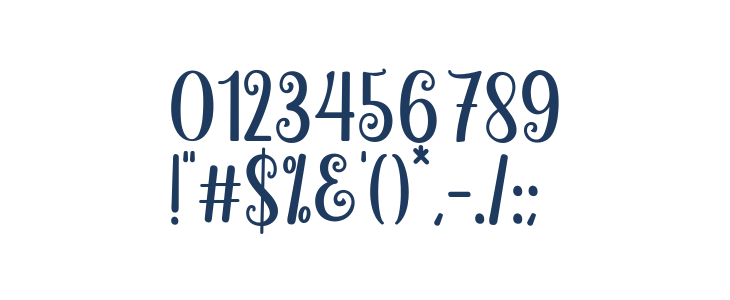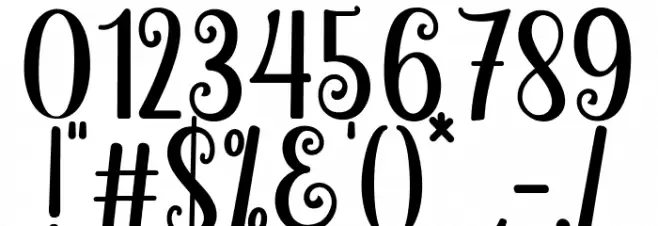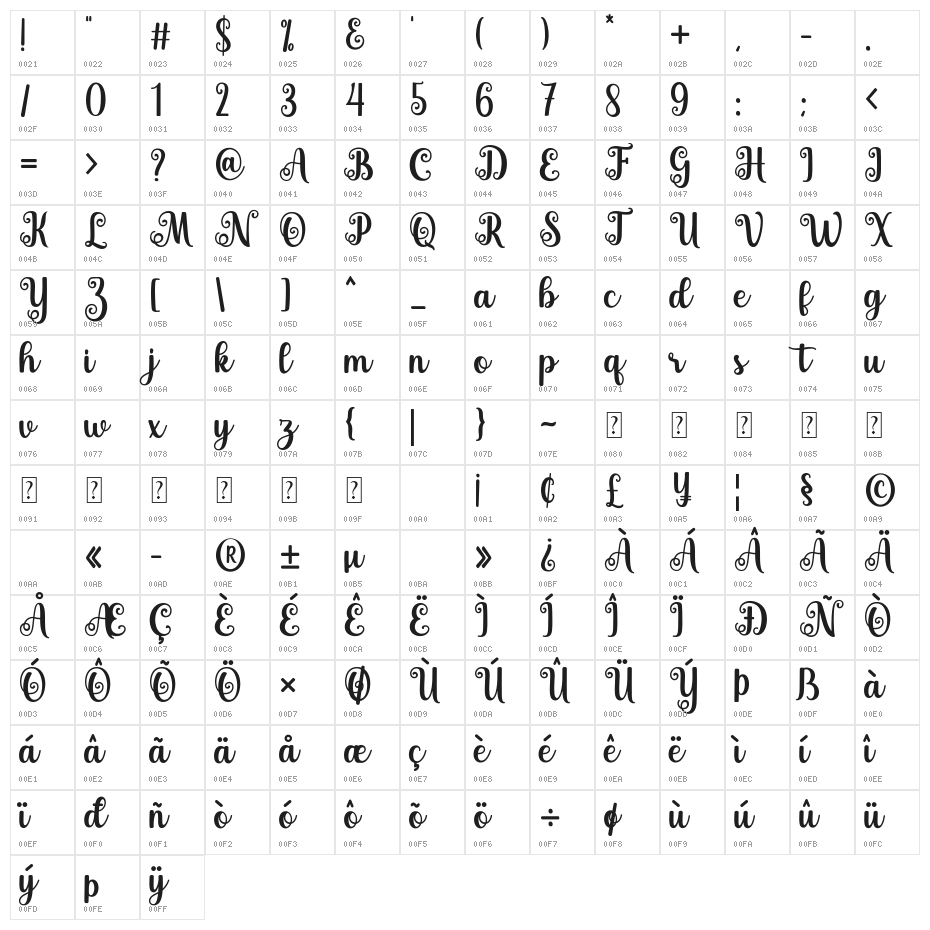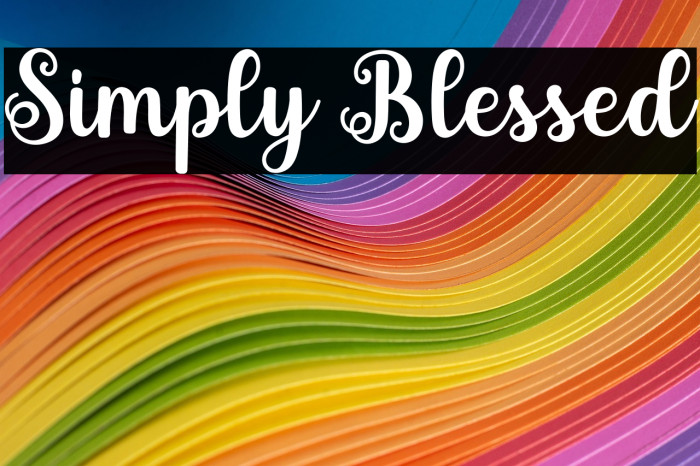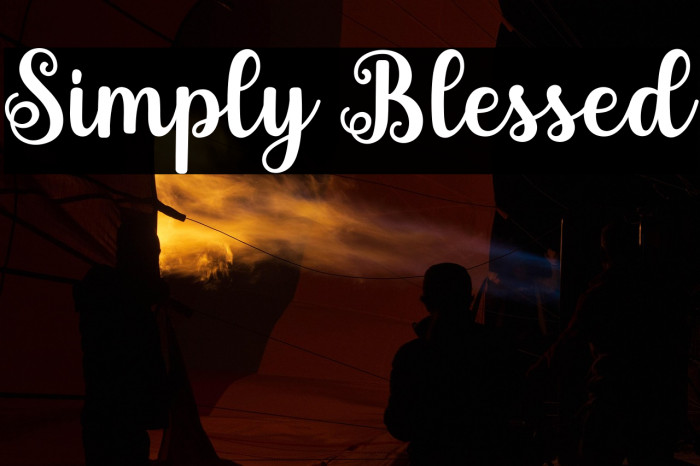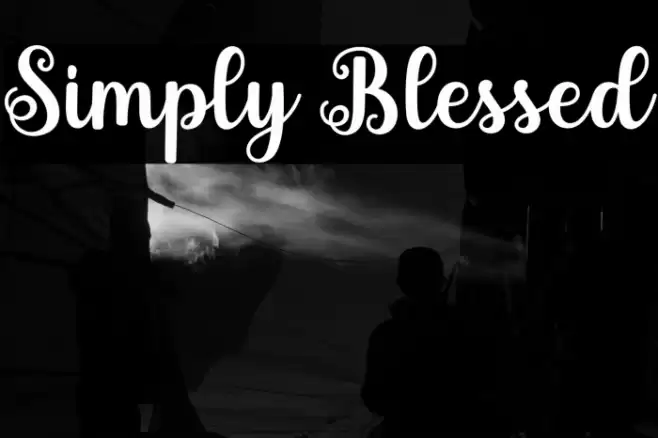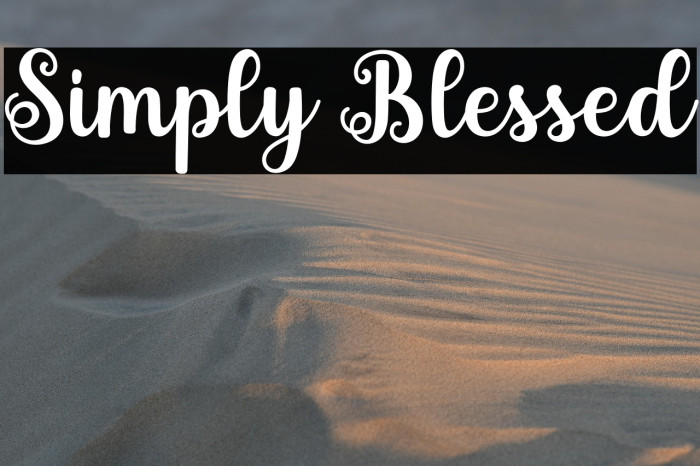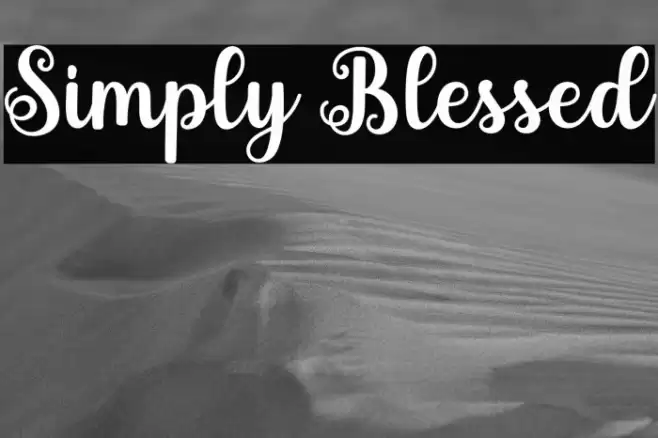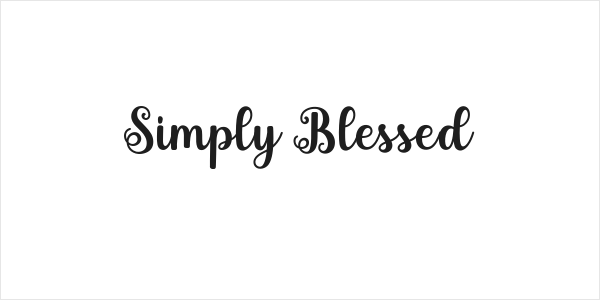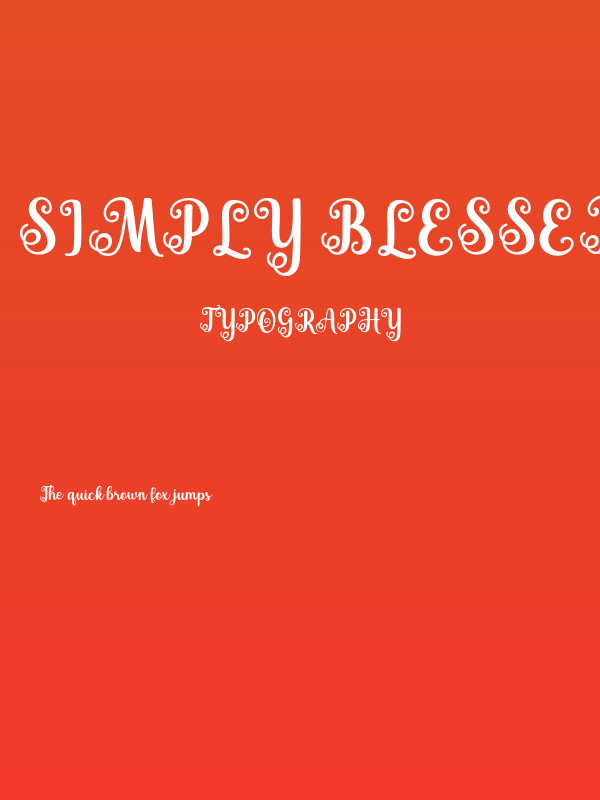
Simply Blessed Font
Simply Blessed Description
This font features a playful and whimsical design with decorative swirls and curls integrated into each character. The uppercase letters are particularly ornate, with loops and flourishes that give them a unique, artistic flair. The lowercase letters maintain a more consistent flow, with smooth, rounded edges that enhance readability while still retaining a touch of elegance. The numerals and special characters follow the same decorative style, making them suitable for creative projects. Overall, the font exudes a sense of charm and creativity, perfect for adding a personal touch to any design.
Use CaseLogos, Headlines, Invitations
Proposed ProjectsIdeal for greeting cards, invitations, branding, and decorative signage.